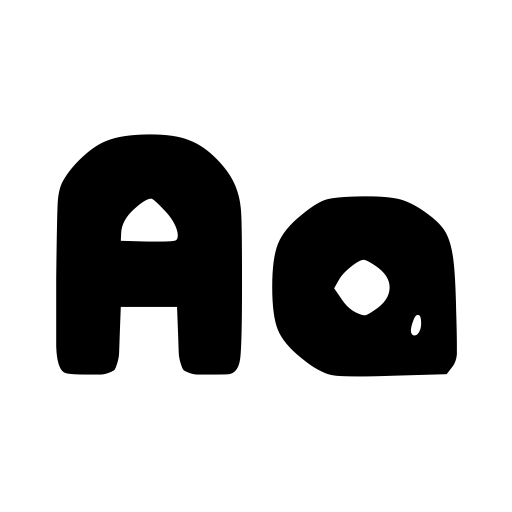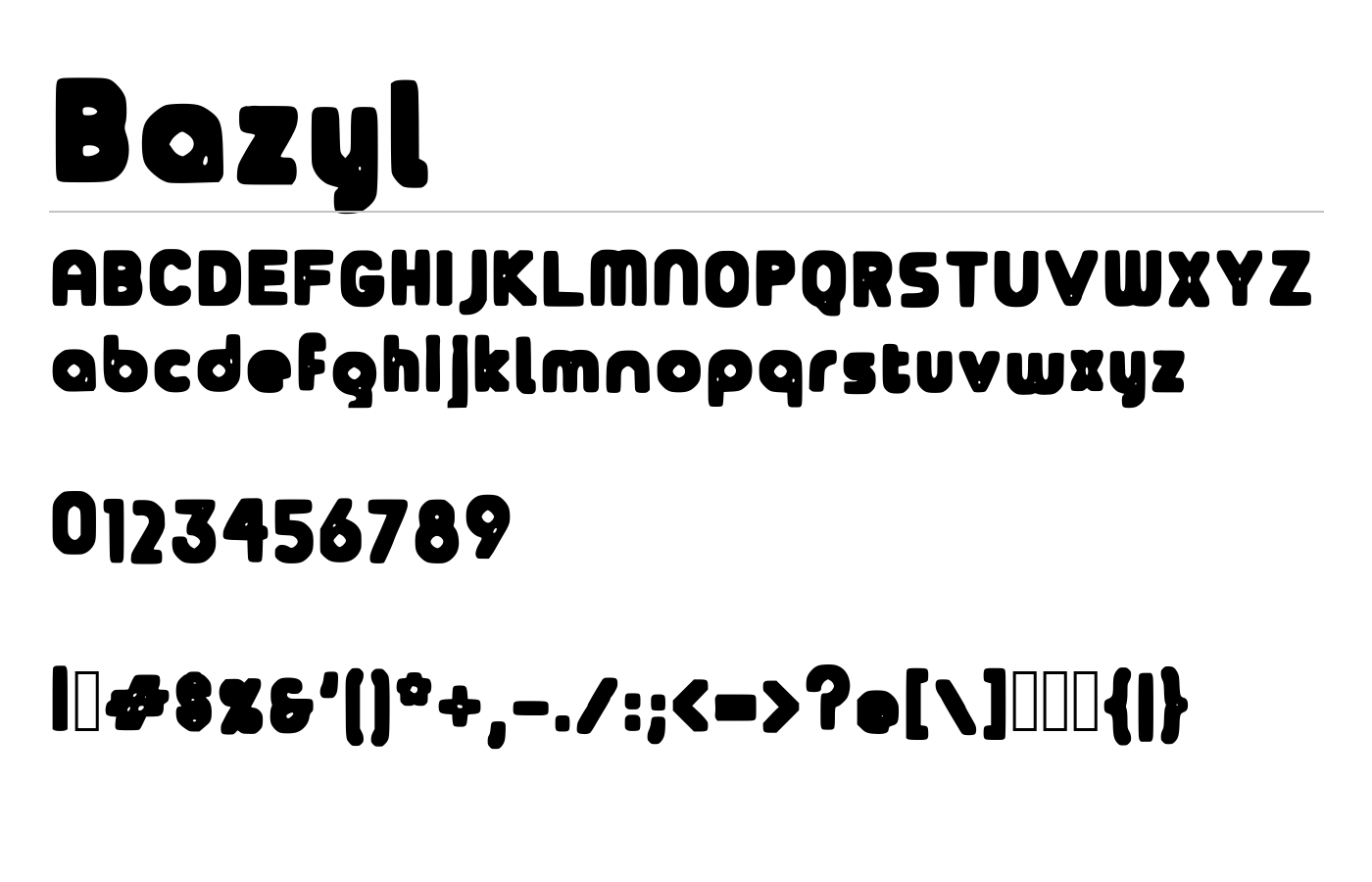
Bazyl is a bold, playful sans serif font with rounded, stout letterforms that create a friendly and approachable feel. Its chunky, slightly irregular shapes give it a hand-crafted personality, making it ideal for children’s books, casual branding, or any design that aims to be fun and inviting. This font works best in headlines or display uses where a strong, youthful voice is needed to catch attention.
Bazyl Font
About Bazyl Font